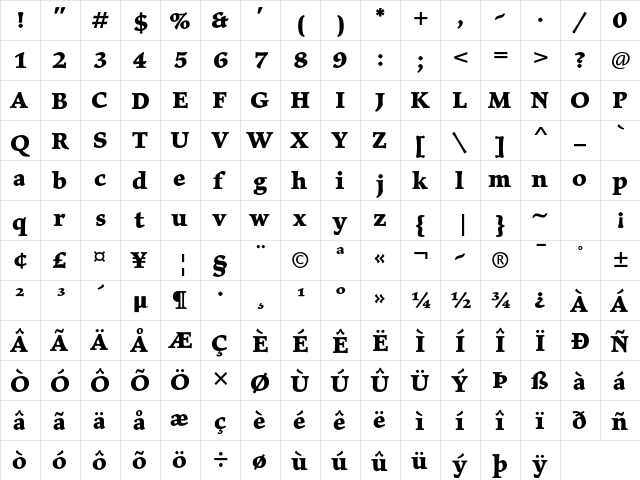
Elysium Std Bold Font Preview
Elysium Std Bold
Elysium Std Bold Font Details
| Designer | Michael Gills |
Design Context for Elysium Std Typeface
Elysium Std takes a measured approach to typography — its balanced proportions and neutral character make it a reliable workhorse for both digital and print work. Its bold stroke weight gives it real presence on the page.